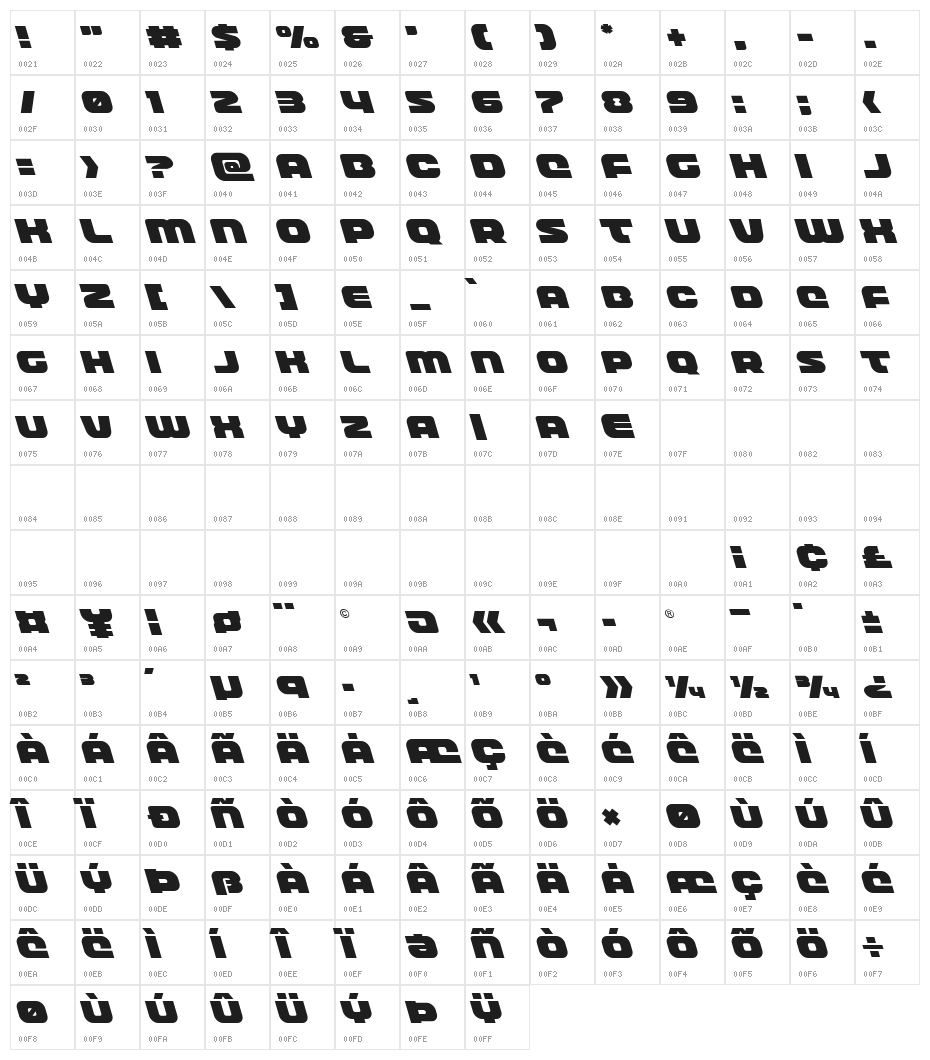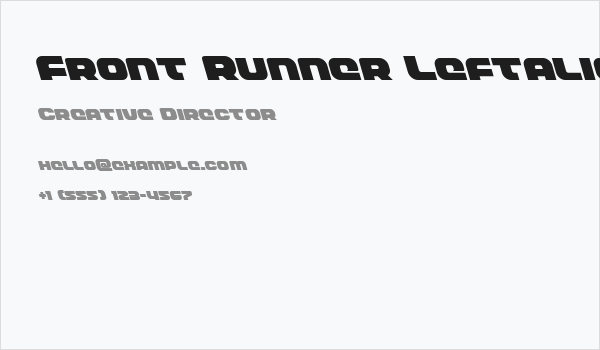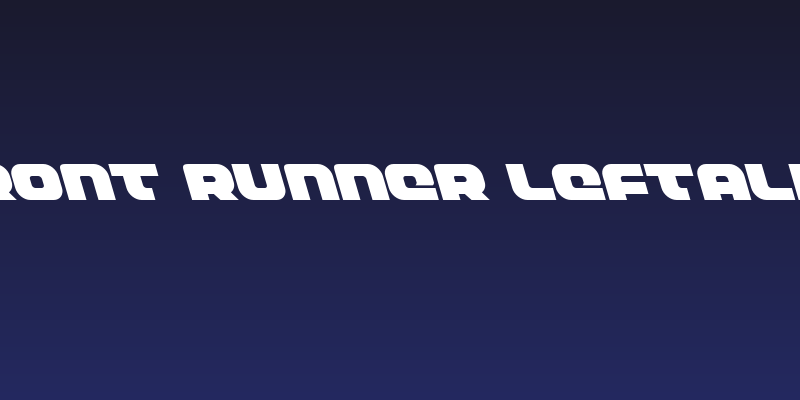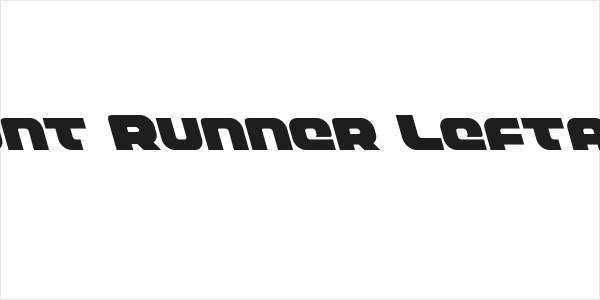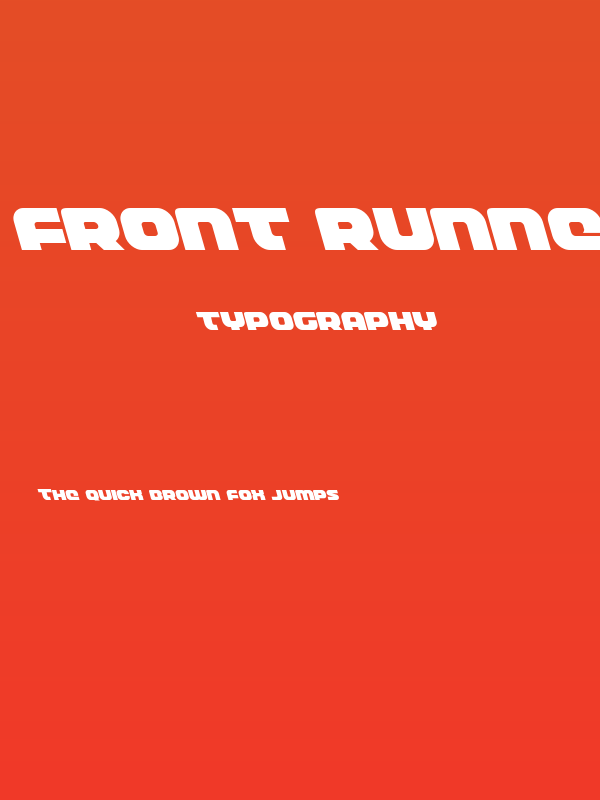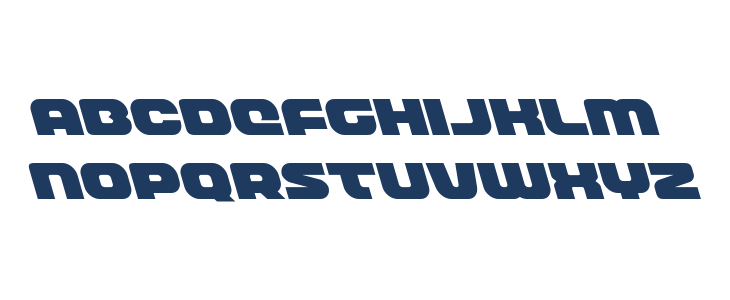
Front Runner Leftalic Font
Front Runner Leftalic Description
This font features a bold, futuristic design with a distinct slant to the left, giving it a dynamic and forward-moving appearance. The characters are wide and blocky, with sharp angles and a strong presence. The uppercase and lowercase letters maintain a consistent style, while the numerals and special characters complement the overall aesthetic. The font's boldness and unique slant make it ideal for attention-grabbing headlines and modern design projects.
| Proposed Projects | Ideal for sci-fi themed posters, video game titles, sports branding, and modern advertising campaigns. |